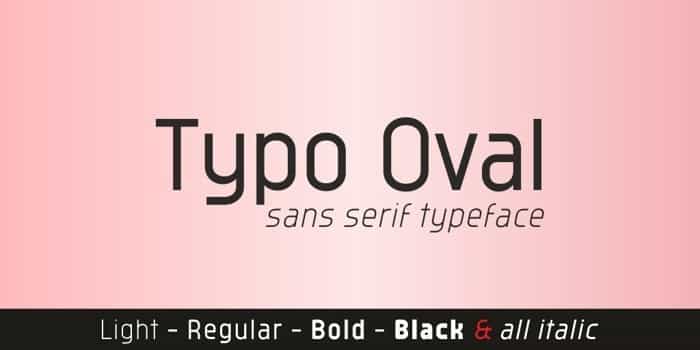
Typo Oval was influenced by Swiss typography, but it has some characteristics that give it a personality and a modern look. Typo Oval Font is a combination of the shapes of grotesks from the mid-century with straight angles. It was created to be versatile and legible. It is perfect for poster design, branding or editorial.